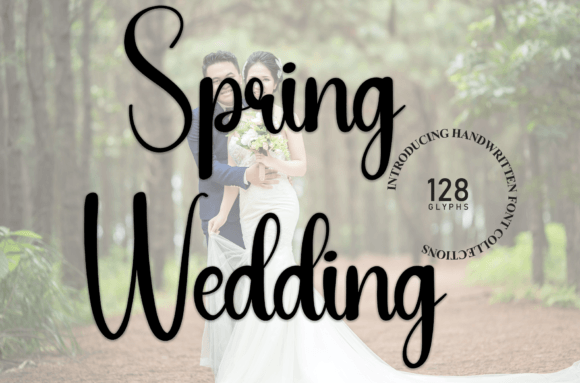
Embark on a journey through the realm of typography with our exquisite script font, Spring Wedding – a creation by the artistic visionary, William Jhody. This font captivates with its playful elegance, perfect for adding a touch of whimsical charm to your designs.
Unleash your creativity and embrace the joyous spirit of Spring Wedding, a font that dances across the page with a light-hearted grace. Its flowing curves and delicate strokes evoke a sense of carefree romance, making it the ideal choice for wedding invitations, greeting cards, and any project seeking a touch of heartfelt charm.
More than just a font, Spring Wedding is an expression of individuality, allowing you to infuse your designs with a unique personality. Its versatility extends beyond the realm of weddings, seamlessly adapting to a wide array of projects, from branding to social media graphics. With Spring Wedding as your creative companion, the possibilities are endless.
With Spring Wedding, you'll discover a font that's not merely a collection of letters, but an artistic tool that breathes life into your designs. Its enchanting allure will captivate your audience, leaving a lasting impression that lingers in their minds.
The essence of Spring Wedding lies in its ability to transform the ordinary into the extraordinary. Its delicate strokes mimic the gentle caress of a spring breeze, while its carefully crafted curves evoke the blooming flowers that herald the season's arrival. Each letter dances across the page with a grace that's both captivating and unforgettable.
Whether you're a seasoned designer or just starting your creative journey, Spring Wedding is the perfect font to elevate your projects to new heights. Its user-friendly nature makes it accessible to all, allowing you to effortlessly add a touch of elegance and charm to your designs.
So, let Spring Wedding be your muse, your creative companion, and your ticket to typographic excellence. Embrace its enchanting beauty and watch as your designs blossom into masterpieces that leave an indelible mark on your audience.